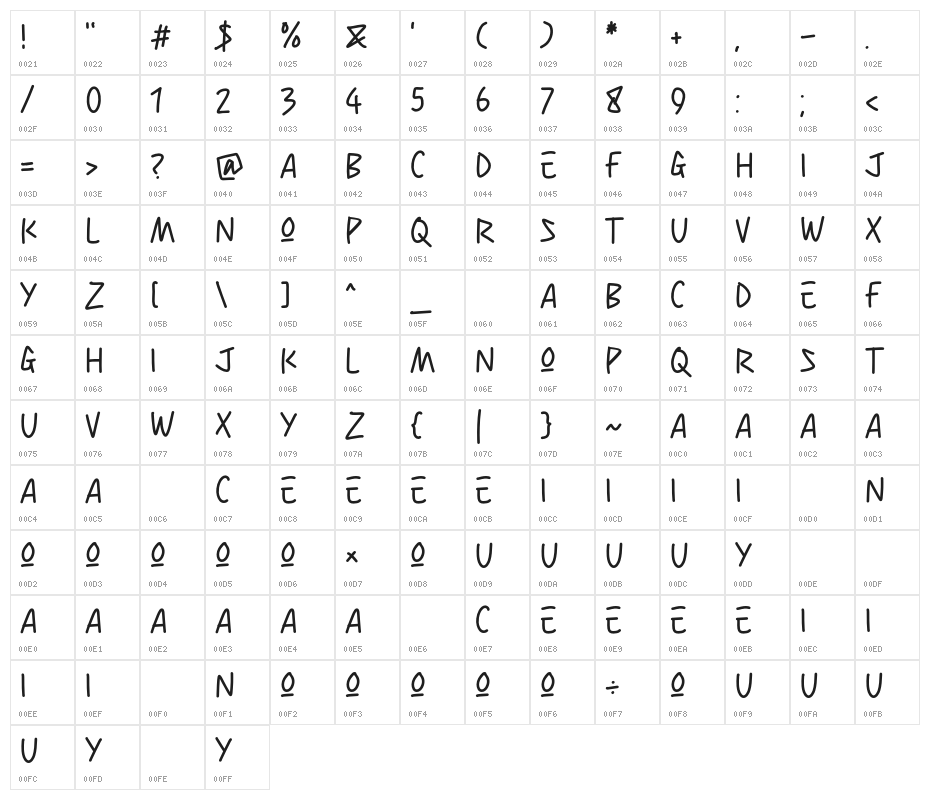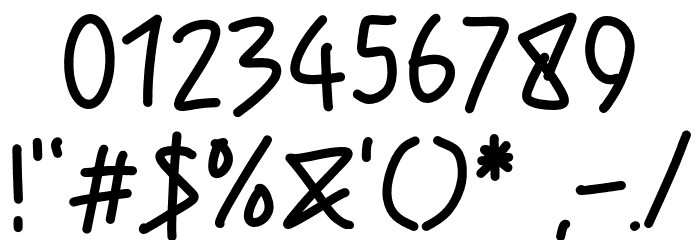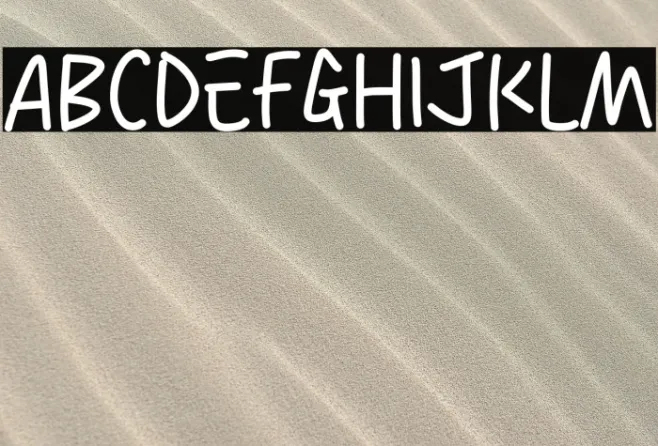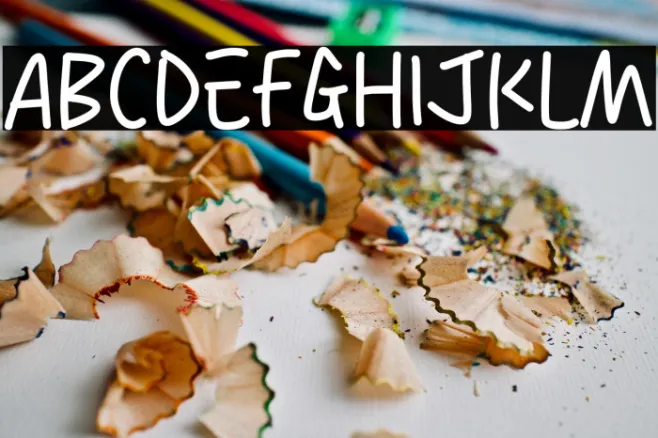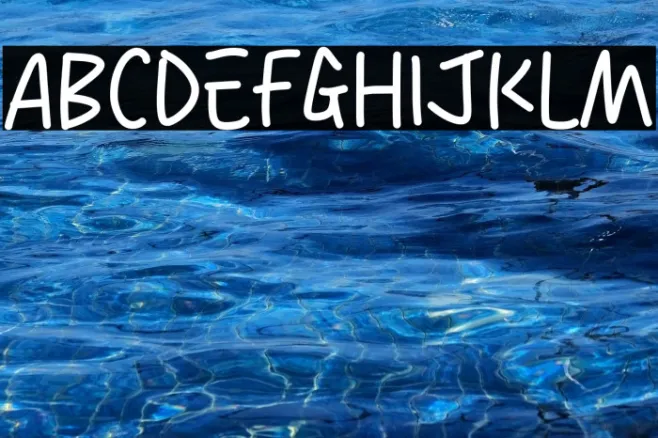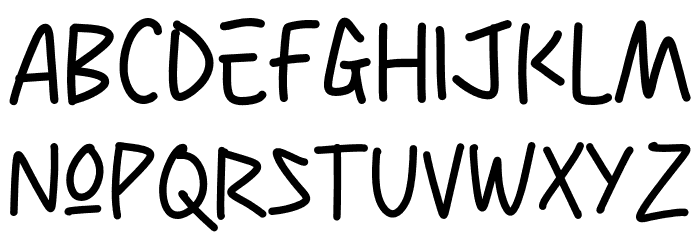
This font features a playful and casual handwritten style, characterized by its uneven strokes and slightly irregular letterforms. The uppercase and lowercase letters maintain a consistent flow, giving it a natural and approachable feel. The numbers and special characters are designed with the same informal touch, making them blend seamlessly with the alphabet. The overall appearance is friendly and informal, suitable for projects that require a personal or whimsical touch. The strokes are moderately thick, providing good readability while maintaining the casual aesthetic.
| Overall Style | Casual, Playful |
| Use Case | Headlines, Informal text, Creative projects |
| Proposed Projects | Ideal for greeting cards, children's books, casual branding, and social media graphics. |